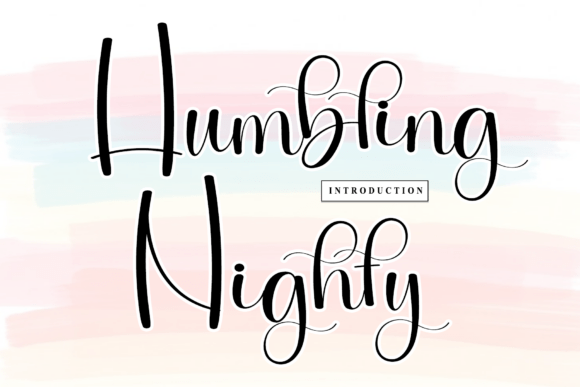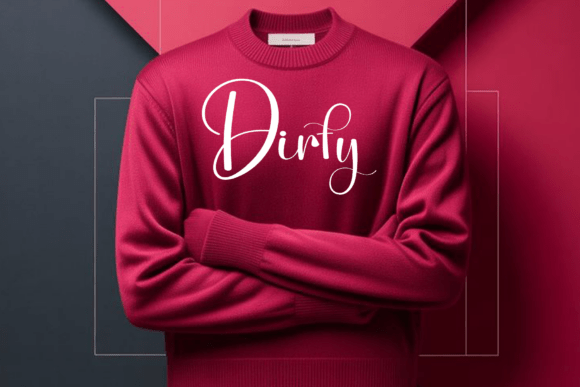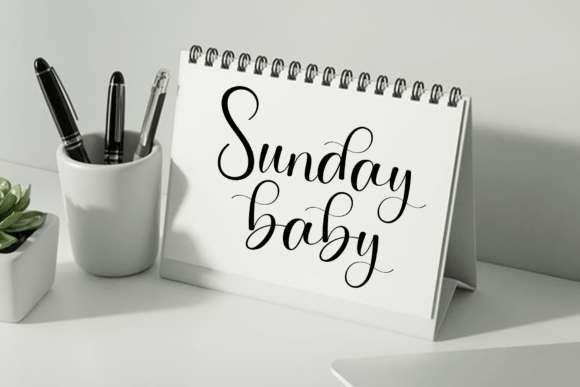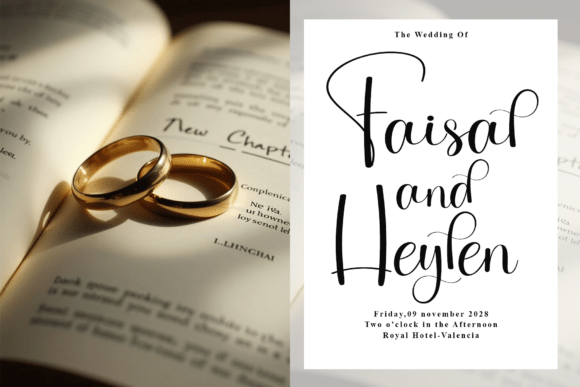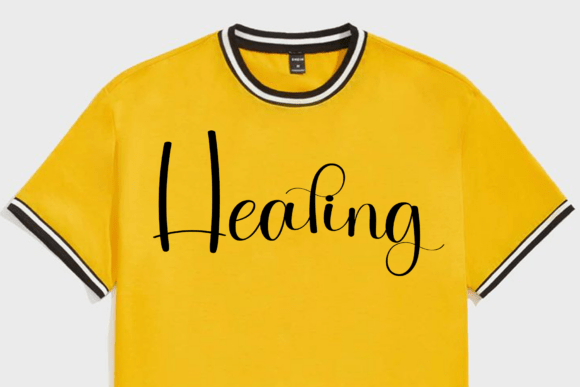
A Night of Inspiration
It’s 2 AM, and you’re sitting at your desk, staring at a blank screen, trying to come up with the perfect concept for your latest project. The words won’t come, but the feeling does – a sense of unease, a pinch of frustration, and a dash of excitement. This is when the magic happens, and the right font can be the spark that sets your creativity ablaze.
Enter Humbling Nighty Font, a sophisticated and rhythmic script font that embodies the perfect blend of calligraphy and organic charm. This versatile typeface is not just a pretty face; it’s a tool that can elevate your branding, packaging, and marketing materials to the next level.
With its unique visual rhythm and artisanal aesthetic, Humbling Nighty Font is a valuable addition to any designer’s toolkit. Its sweeping ascenders and delicate hairline connectors make it a premier choice for those seeking to create a sense of exclusivity and high-end quality. Whether you’re working on a boutique product or a creative editorial title, Humbling Nighty Font is sure to leave a lasting impression.
Humbling Nighty Font Key Features
- Size and Resolution: The font is available in 1 style, with a size range of 8 to 120 points, and a resolution of 300 DPI, making it suitable for print and digital applications.
- Unique Characteristics: Humbling Nighty Font features a distinctive, elegant design with subtle texture and shading, creating a sophisticated and professional look.
- Font Weight: The font has a single weight, making it ideal for use in titles, headings, and body text where a consistent look is desired.
- Language Support: Humbling Nighty Font supports a wide range of languages, including English, Spanish, French, German, Italian, Portuguese, and many others, making it a great choice for global applications.
- Font Metrics: Humbling Nighty Font has a x-height of 45% and a cap height of 70%, making it suitable for use in body text and titles where readability is important.
Humbling Nighty Font Review
I’ve had the chance to work with the Humbling Nighty Font, and overall, I’d say it’s a solid addition to any design project. Here’s what I like and dislike about it:
- Unique aesthetic: The Humbling Nighty Font has a distinct, vintage feel that sets it apart from more generic fonts.
- High legibility: The font is well-designed for reading, even at smaller sizes.
- Good versatility: It works well for both body text and headings, making it a convenient choice for projects.
- Limited expressiveness: While the font has a distinct feel, it may not be the best choice for projects that require a wide range of emotional expression.
- Not ideal for small text: While legible, the font can become difficult to read at very small sizes.
Overall, I’d say the Humbling Nighty Font is a great choice for projects that require a unique, vintage feel. Just be aware of its limitations, and consider pairing it with other fonts to add more variety to your design.
Tips for Getting the Most Out of Humbling Nighty Font
Use Humbling Nighty Font for titles, headings, and body text to create a cohesive and visually appealing design. Experiment with different font sizes and colors to achieve the desired look.
Humbling Nighty Font is ideal for:
- Designing a brand identity for a creative agency or design studio.
- Creating a title for a blog post or article.
- Designing a brochure or flyer for a creative industry.
The recommended font size for optimal readability with the Humbling Nighty Font is between 12-14 points for body text and 18-24 points for headings. However, this may vary depending on the specific application and design requirements.